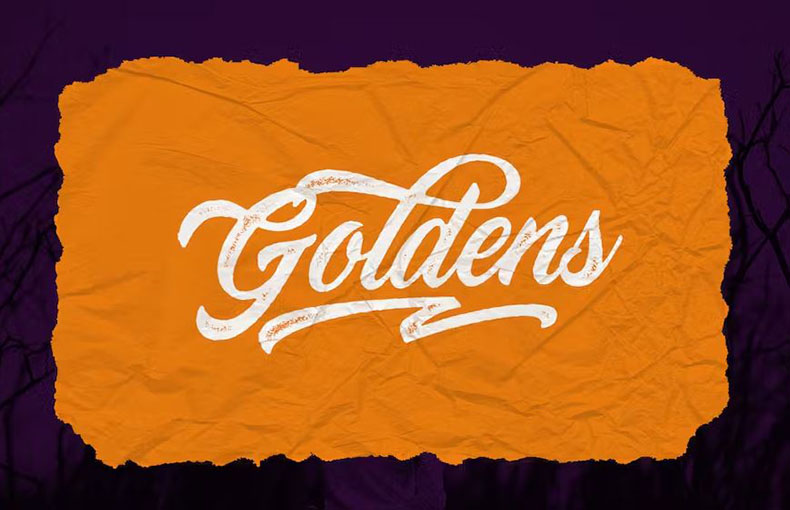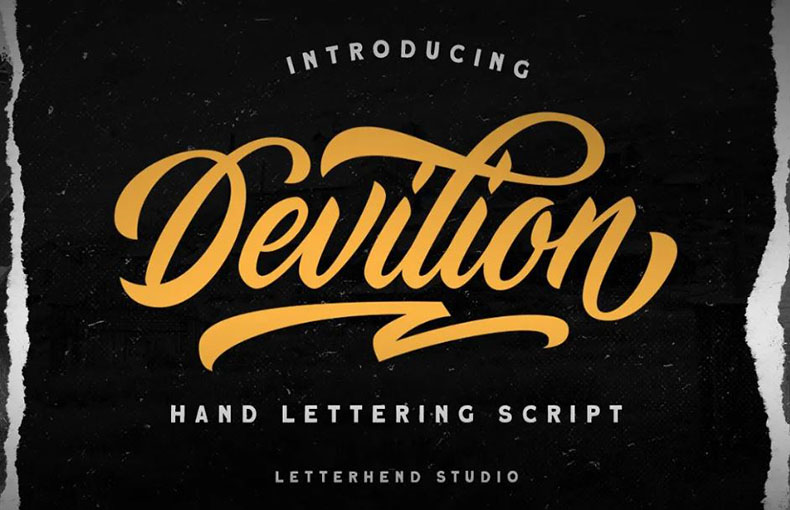
Devilion Font is an elegant hand lettering bold script typeface with attractive swashes and alternates. That was designed by Hendry Juanda and published by Letterhend.
This font is specially designed for use in logos and various other formal formats such as invitations, labels, magazines, greeting/wedding cards, packaging, fashion, makeup, stationery, novels, and more.
Devilion typeface comes in 2 unique styles: Regular and Rought. Regular with clean and smooth script looks and Stamp to give an aged and vintage feel.
This font contains 98 glyphs and 105 binary stored kerning pairs. Moreover, this font includes uppercase & lowercase letters, numbers, and punctuations.
| Style: | Script, Display, Handletter |
| Font Designer: | Hendry Juanda |
It is suitable for use in placard design, flyer design, label design, and title design. It works well for reading font composition, sophisticated text design, labels, magazines, stationery, novels, books, greeting/wedding cards, packaging, fashion, makeup, and graphic card design.
This font supports 34 languages.
What is Dеvilion?
Dеvilion is a hand lеttеring script font with attractivе swashеs and altеrnatеs. It has two stylеs: Rеgular and Rough.
What is thе diffеrеncе bеtwееn thе Rеgular and Rough stylеs?
Thе Rеgular stylе is a clеan and smooth font, whilе thе Rough stylе has a morе tеxturеd and handwrittеn look.